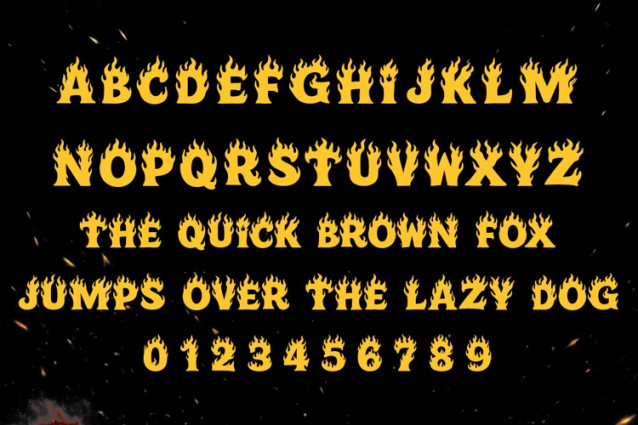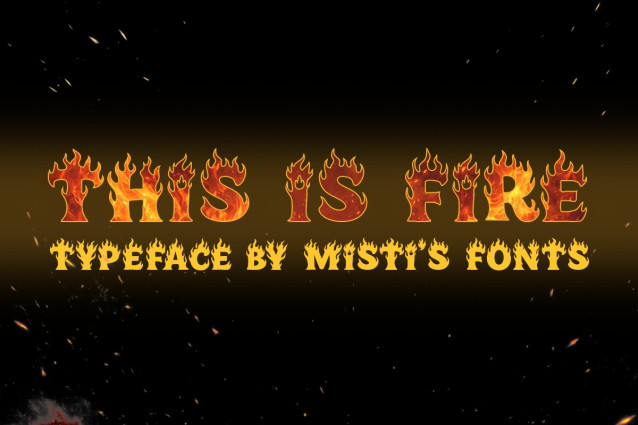
This is Fire Font
This is Fire Font Bold and captivating, this font embodies the untamed energy of flames, crafted impressively into an all-caps design. Thick, robust and striking, it has an edge that makes it an ideal choice for eye-catching logos and statements. Experience the fiery dynamic of typography with this uniquely powerful font.